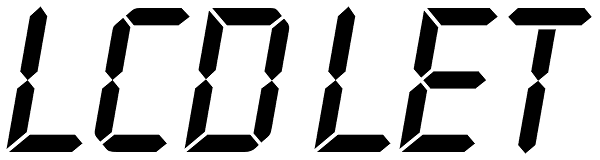
LCD
'LCD' stands for 'Liquid Crystal Display', the information display technology used in products such as digital watches and clocks. An appropriate choice when a futuristic, high-tech look is desired. Designed by the talented British designer Alan...